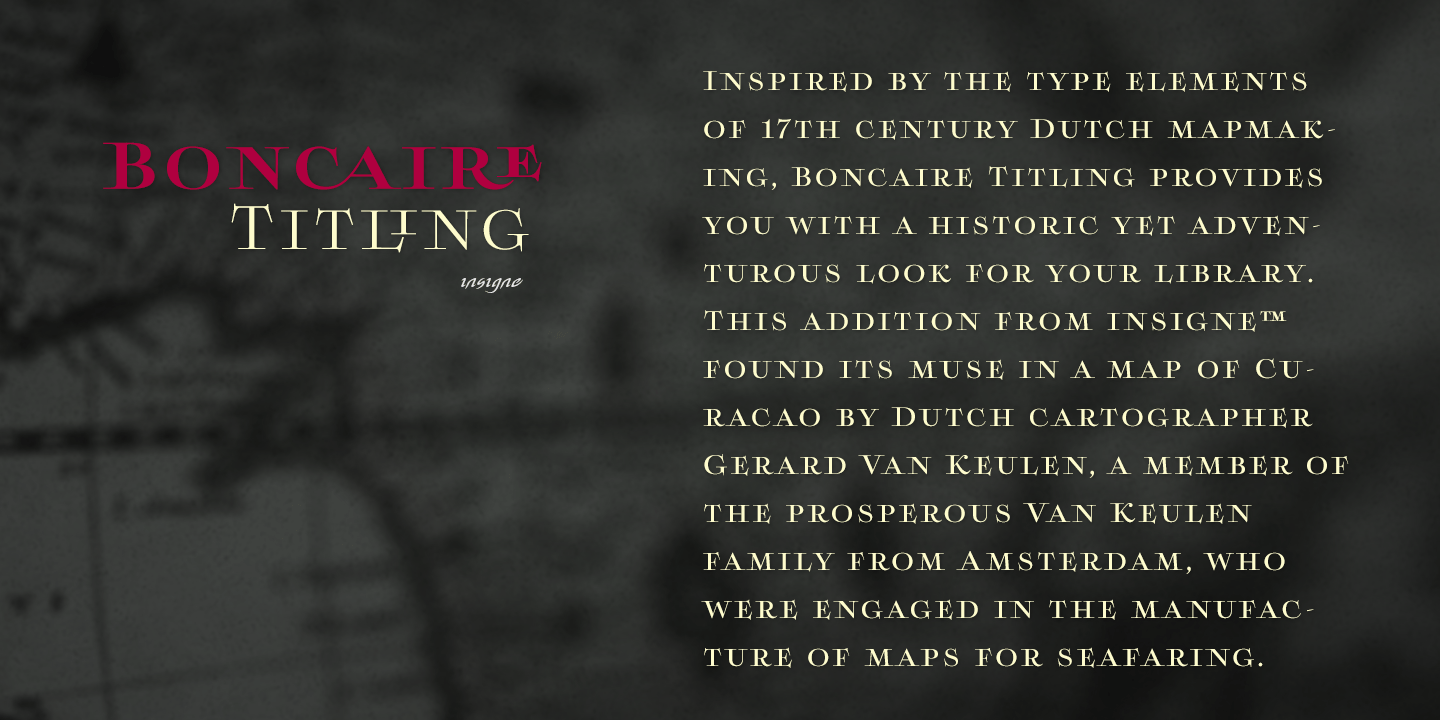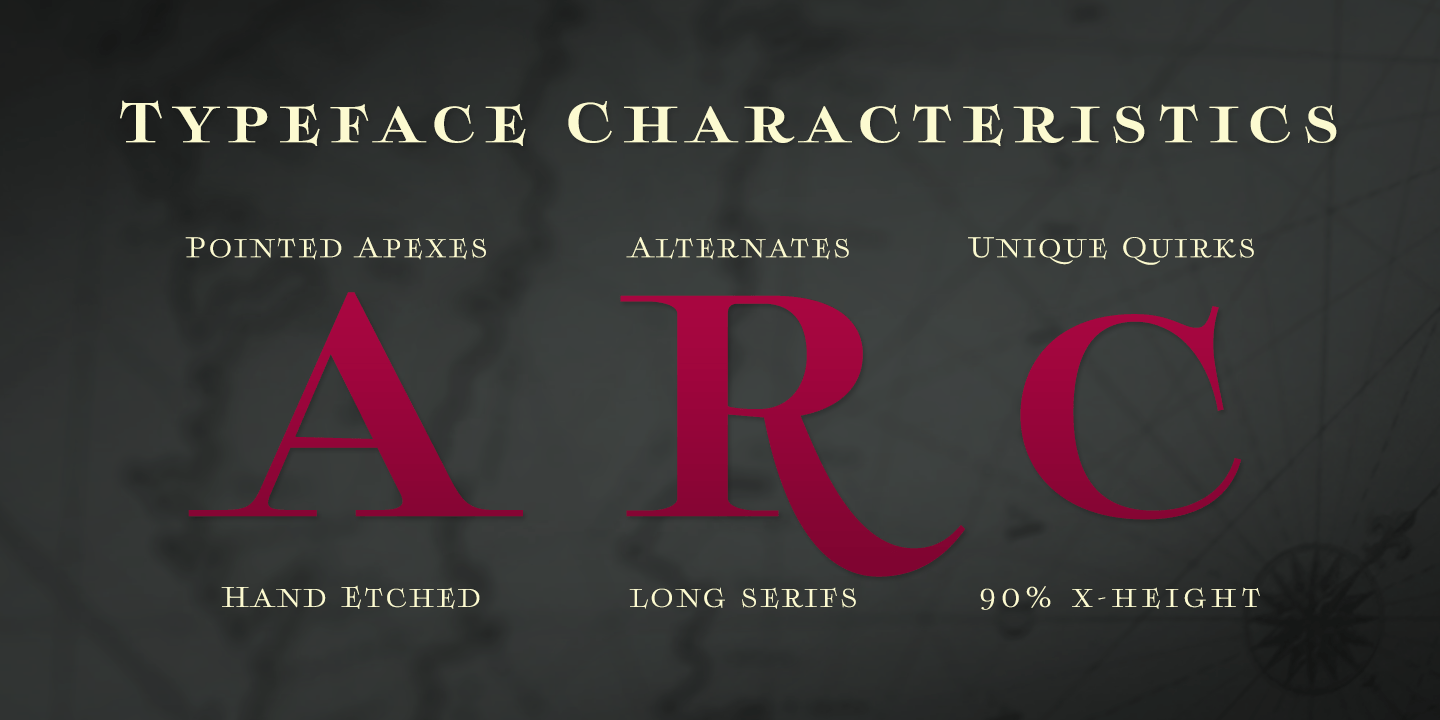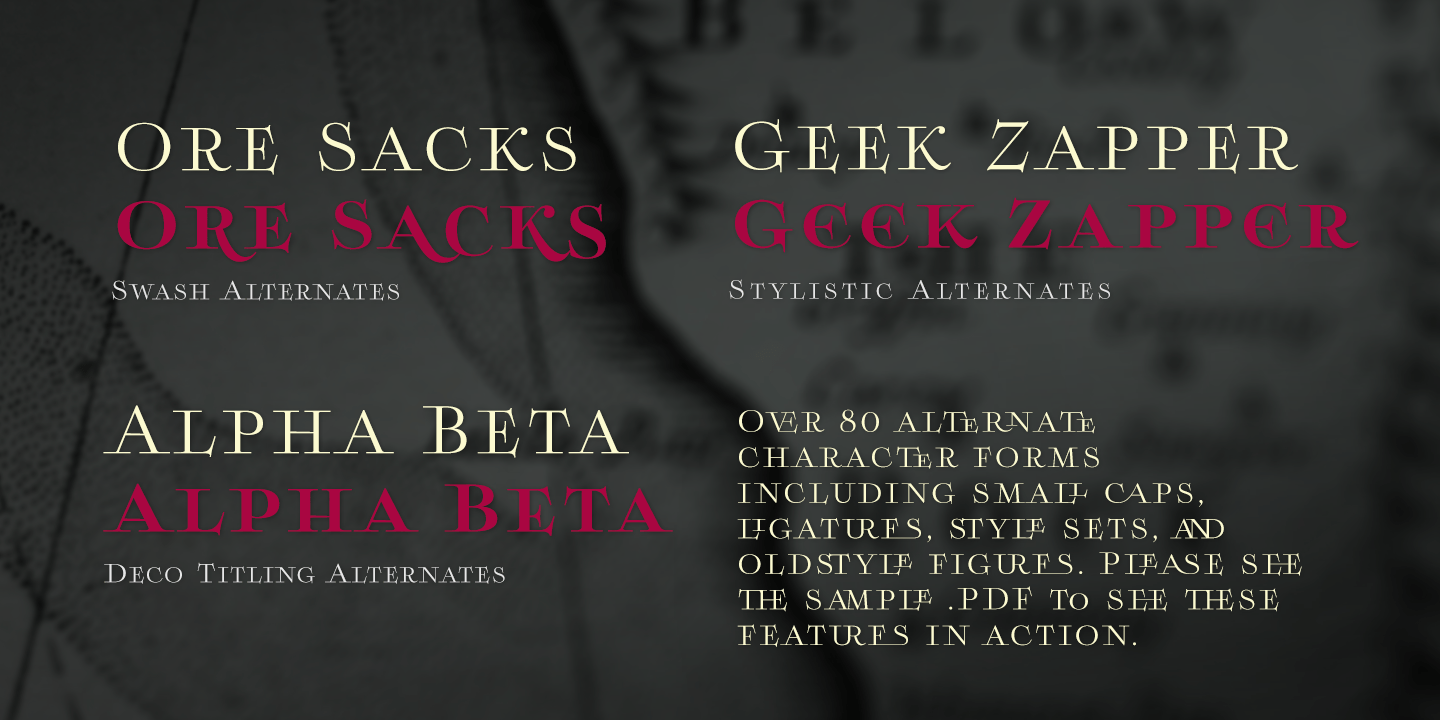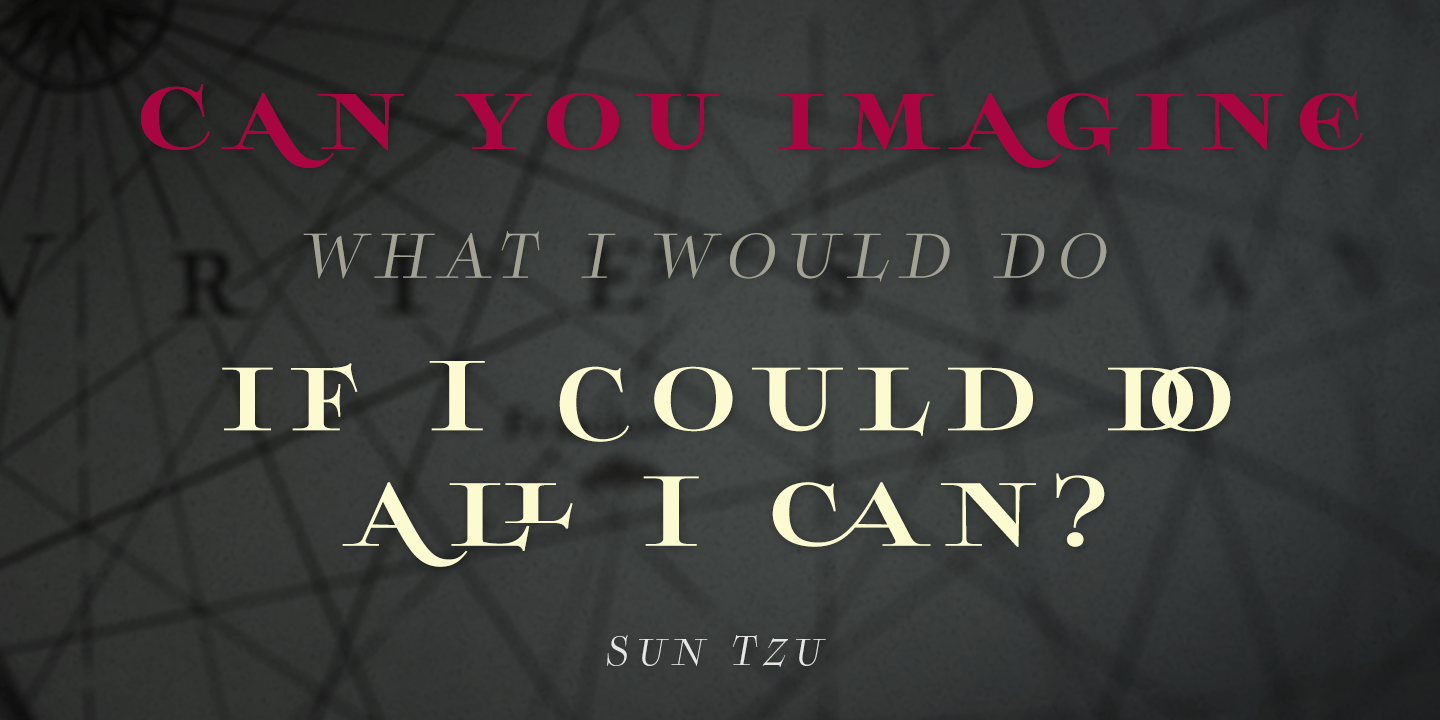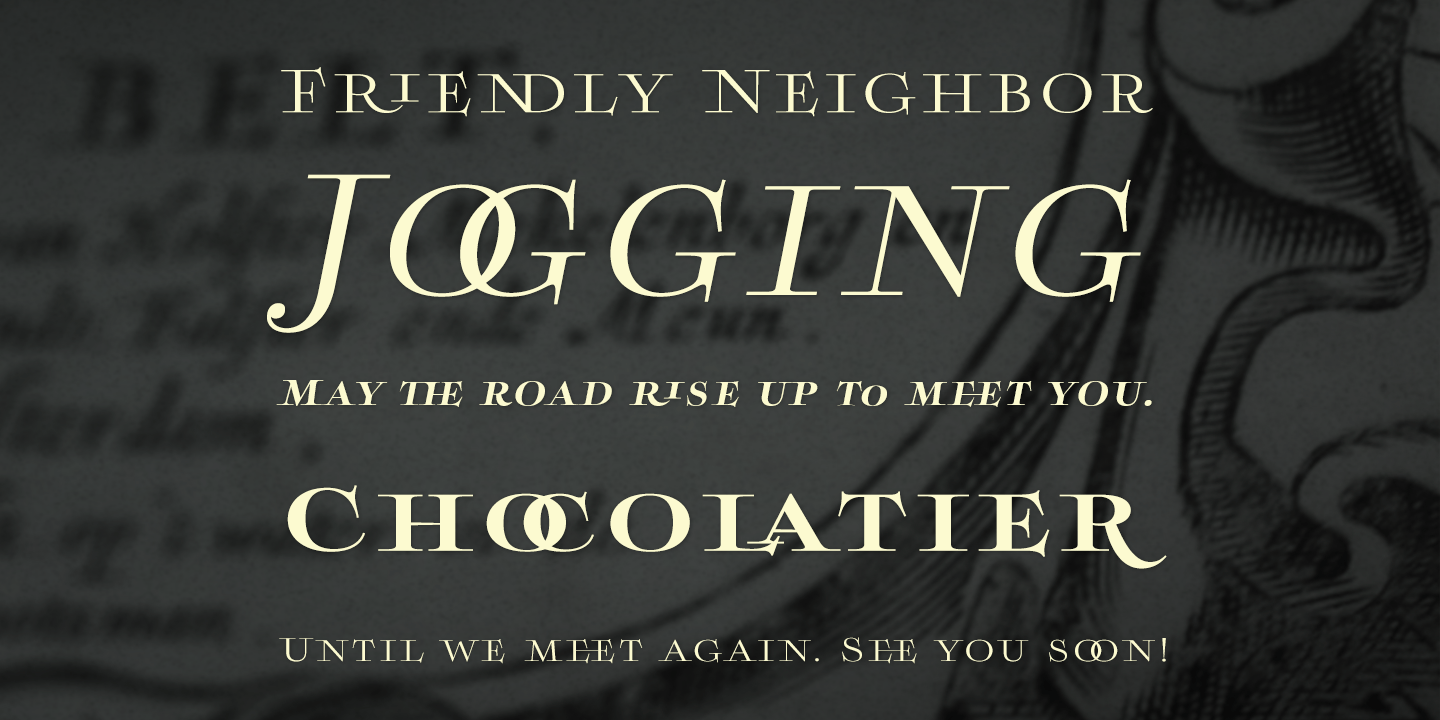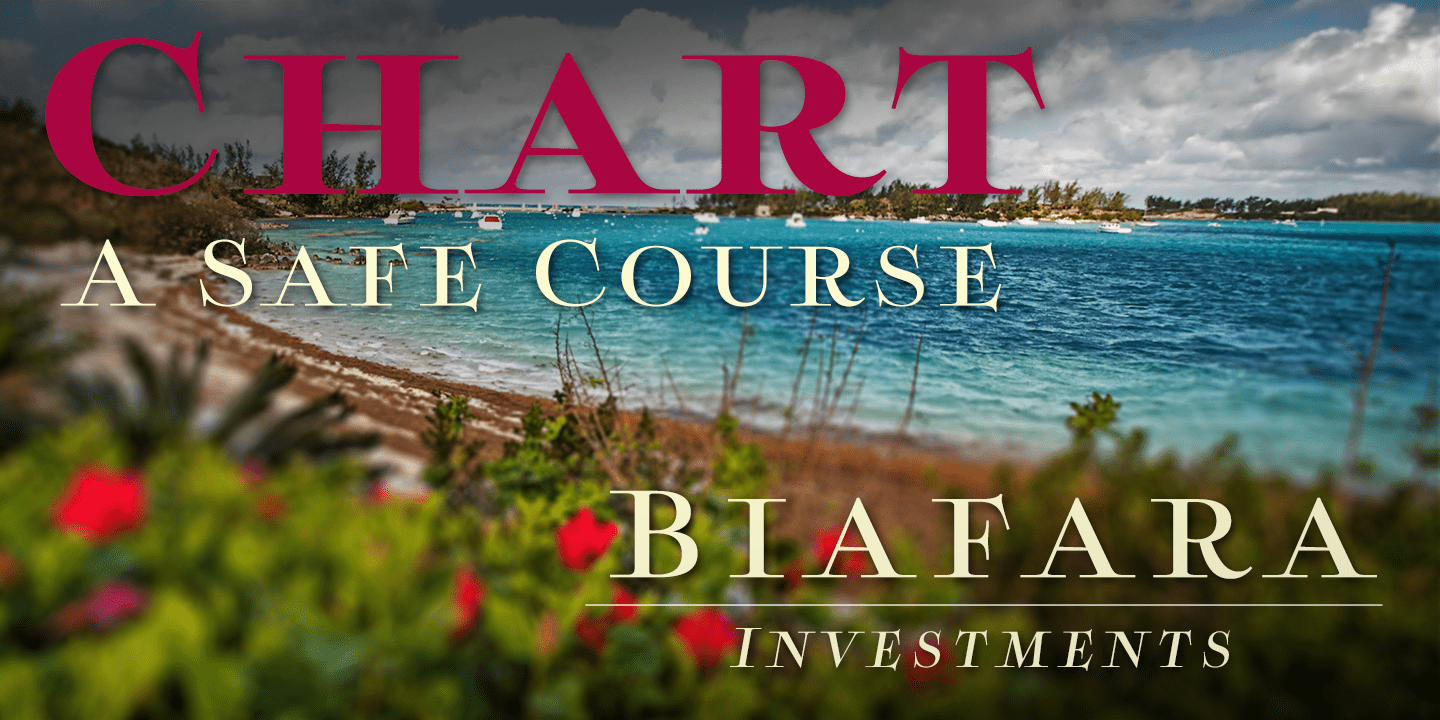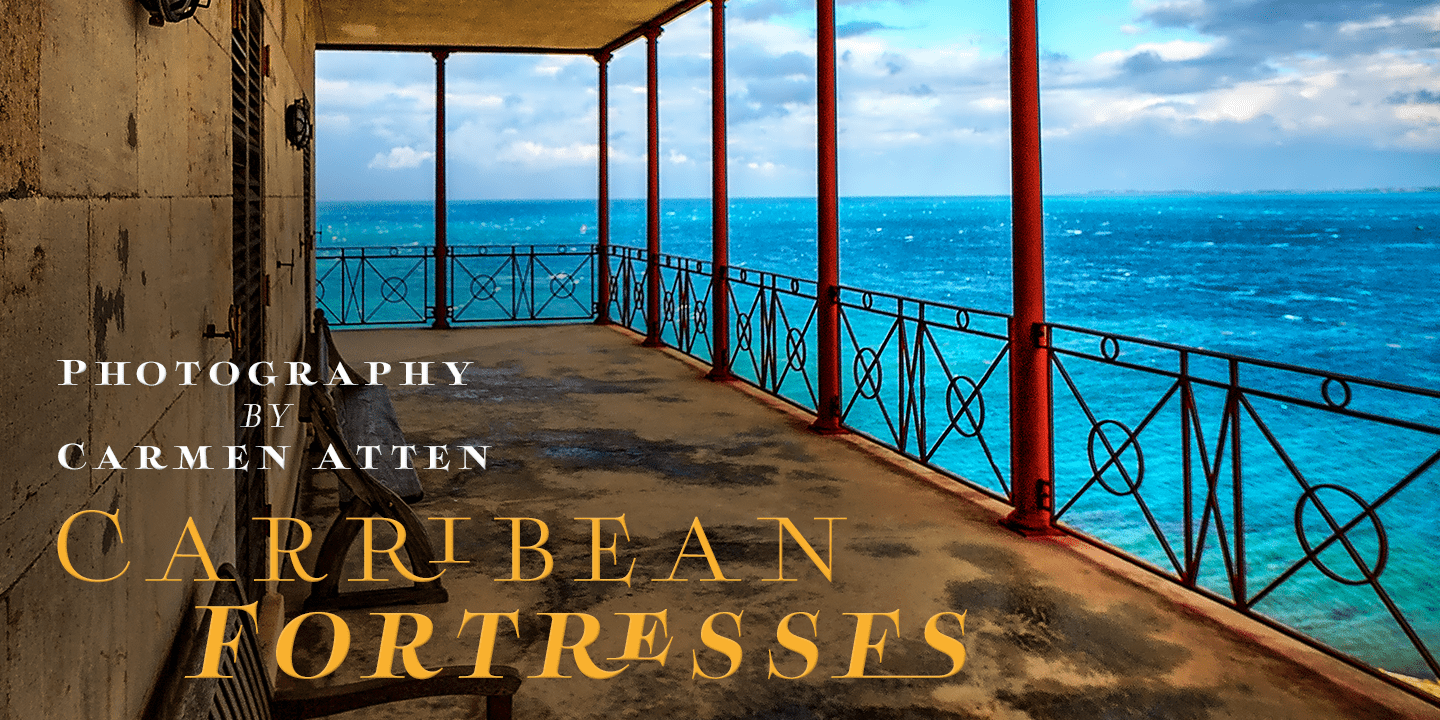
Boncaire Titling
Font Family by Insigne
Inspired by the type elements of 17th century Dutch mapmaking, Boncaire Titling provides you with a historic yet adventurous look for your library. This addition from insigne? found its muse in a map of Curacao by Dutch cartographer Gerard Van Keulen, a member of the prosperous Van Keulen family from Amsterdam, who were engaged in the manufacture of maps for seafaring.
While I studied the maps, I narrowed in on some of the original type's unique idiosyncrasies. For instance, the long, exaggerated serifs, which give the forms a sense of stability, aid in the face's legibility--largely a byproduct of the engraving method that was used to create the metal plates for manufacturing these maps. In creating Boncaire Titling, I decided to capture these unique idiosyncrasies, embracing the character of the engravings rather than removing them entirely through ?over-refining? the forms. The result is an elegant family with far more than seafaring potential.
This font has a full range of six weights, from thin to black. It also includes a wide variety of OpenType alternates. All insigne? fonts are fully loaded with OpenType features. Boncaire Titling is also equipped for complex professional typography, including alternates, smaller titling caps and plenty of alts, including ?normalized? capitals and lowercase letters. There are over 30 autoreplacing ligatures, and the face includes a number of numeral sets, including fractions, old-style and lining figures with superiors and inferiors. OpenType capable applications such as Quark or the Adobe suite can take full advantage of automatically replacing ligatures and alternates. You can find these features demonstrated in the .pdf brochure.
Boncaire Titling also includes the glyphs to support a wide range of languages, including Central, Eastern and Western European languages. In all, Boncaire Titling supports over 40 languages that use the extended Latin script, making the new addition a great choice for multi-lingual publications and packaging.
Maps are fascinating; they come with the promise of treasure to be uncovered. Examining the map itself, too, you can find great wealth in the details so artfully condensed to that single piece of paper--details carried over into this new insigne font. For your next project, explore the imagination potential in Boncaire Titling.